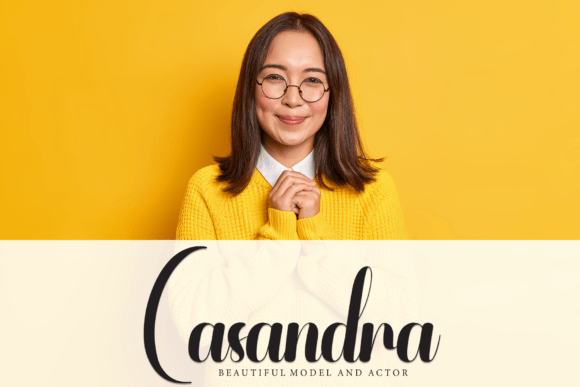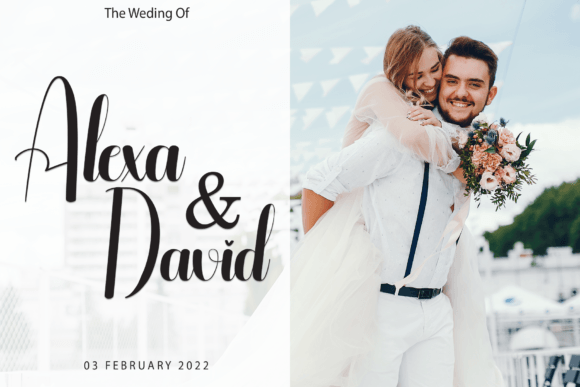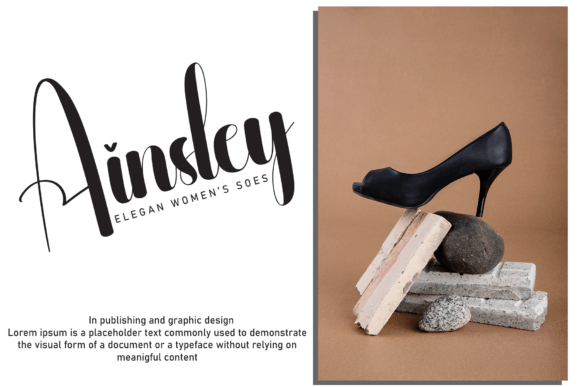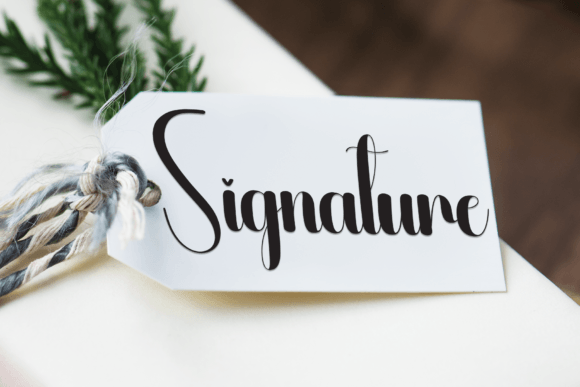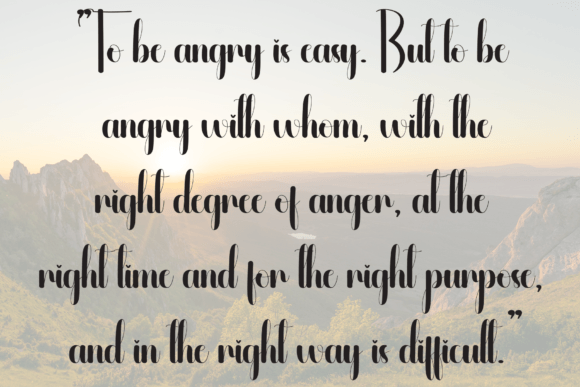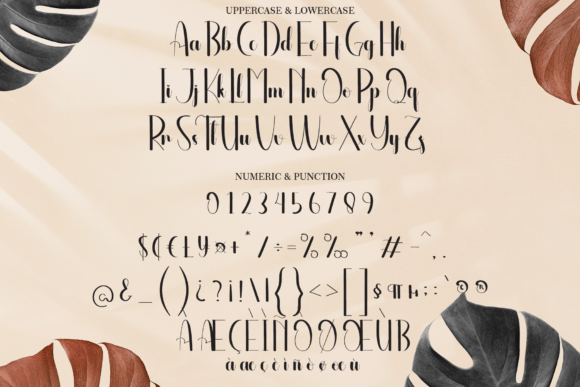
The Annoying Font: A Sweet and Friendly Handwritten Delight
I’ll never forget the time I was working on a wedding invitation project, and my client asked for a font that was both cute and elegant. I scoured the internet, trying out font after font, but nothing seemed quite right. That was until I stumbled upon the Annoying font. At first, I thought the name was a joke, but one look at its sweet and friendly handwritten charm, and I knew I had found the perfect fit.
So, what makes the Annoying font so special? Let’s dive into the good stuff and a few quirks I’ve discovered.
- ✨ Sweet and Friendly Vibe: The Annoying font has a warm, inviting feel that’s perfect for projects that need a personal touch.
- ✅ Cute and Fun: This font is ideal for designs that require a playful twist, like wedding invitations, greeting cards, or kids’ party materials.
- 💕 Handwritten Charm: The font’s handwritten nature gives it a unique, human touch that’s hard to replicate with more formal fonts.
While the Annoying font is delightful, there are a few things to keep in mind:
- 🤔 Limited Use in Formal Designs: Due to its playful nature, the Annoying font might not be the best fit for more formal projects, like corporate branding or official documents.
- ⚠️ Legibility at Small Sizes: Like many handwritten fonts, Annoying can become a bit tricky to read at very small sizes. It’s best used at larger sizes, like 14pt or bigger.
- Experiment with OpenType features, like glyphs and stylistic alternates, to add more personality to your text.
The Designer Inspiration Behind Annoying
While the backstory of the Annoying font is fictional, it’s easy to imagine a designer creating this font as a way to capture the joy and playfulness of handwritten communication. Perhaps the designer, inspired by childhood letters and greeting cards, set out to create a font that would bring a smile to people’s faces.
Q: Is the Annoying font suitable for body text?
A: While the Annoying font is beautiful, it’s best used for headings, titles, or short paragraphs. Its handwritten nature can make it a bit tricky to read in longer blocks of text.